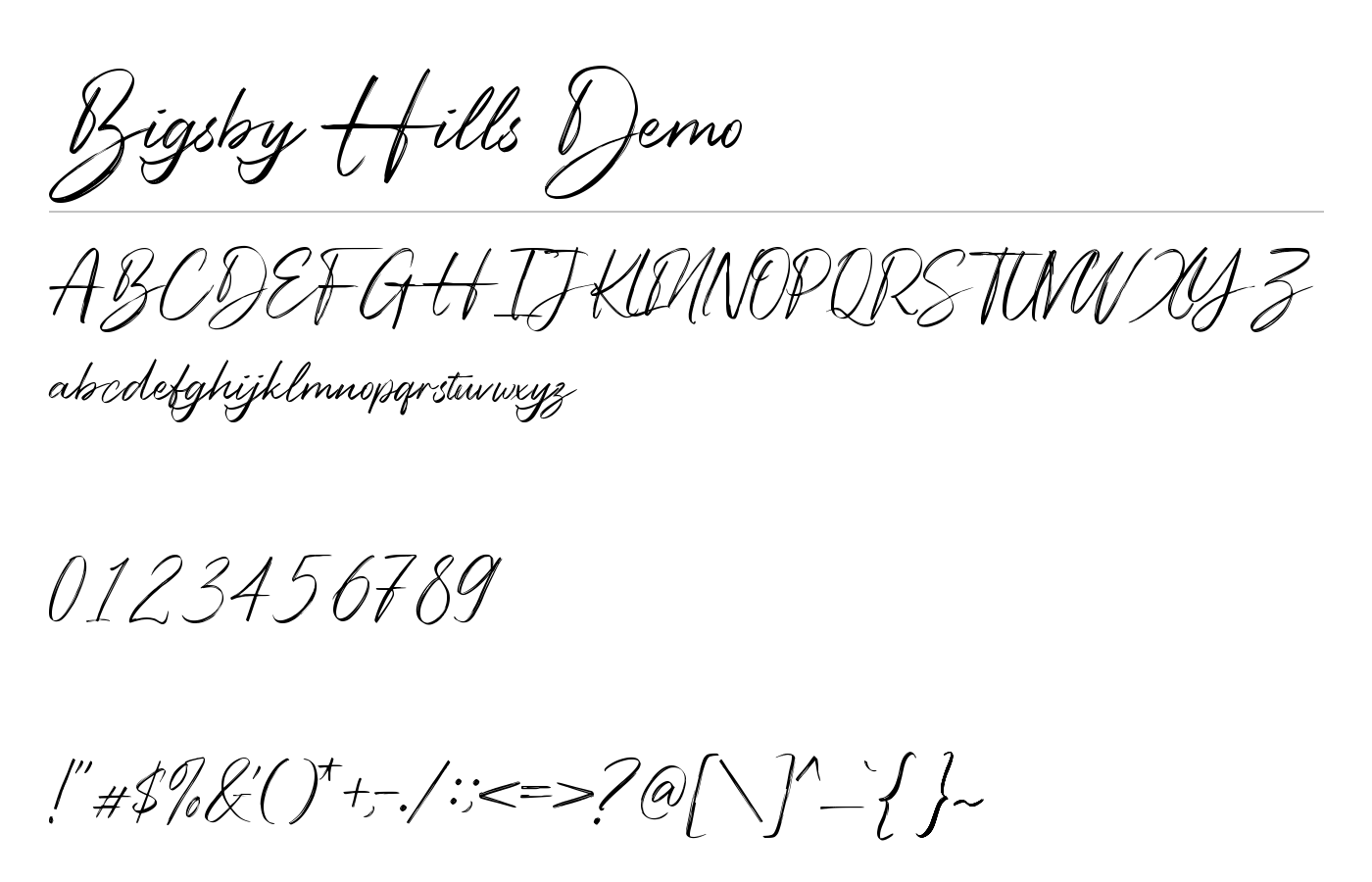
Bigsby Hills Demo is a delicate, elegant script font characterized by its thin, flowing strokes and handwritten style that conveys a refined, personal touch. Its narrow width and high contrast between thick and thin lines create a sophisticated yet approachable feel, making it ideal for luxury branding, wedding invitations, and fashion-related projects where a stylish and graceful impression is desired. This font works best in display settings such as logos and headlines, adding a sense of charm and exclusivity to any design.
Bigsby Hills Demo Font
About Bigsby Hills Demo Font